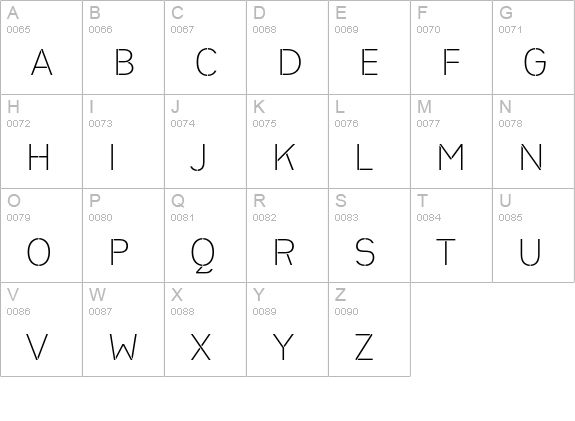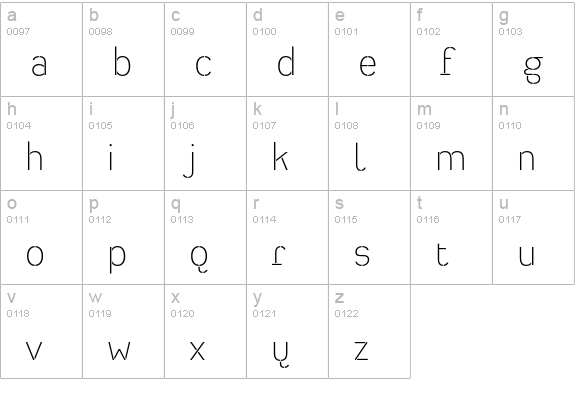
Heimat Stencil ExtraLight Font Details
Heimat Stencil ExtraLight is an airy, ultra-refined variant in the Heimat typeface family \xE2\x80\x94 well suited to minimalist headlines and refined display use.
Heimat Stencil ExtraLight font is an elegant and modern typeface that exudes sophistication and style. With its sleek lines and geometric shapes, this font is perfect for adding a touch of class to any design project. The ExtraLight weight of the font gives it a delicate and airy quality, making it ideal for use in headings, titles, and other display text. One of the best things about Heimat Stencil ExtraLight font is that it is completely free to download. That's right, you can get your hands on this stunning typeface without spending a dime. Simply visit FontsMarket.com to download Heimat Stencil ExtraLight font and start using it in your designs today. Whether you're working on a branding project, a website design, or any other creative endeavor, Heimat Stencil ExtraLight font is sure to make a statement. Its clean and modern look will help your text stand out and grab attention, while its versatility makes it suitable for a wide range of applications. Download Heimat Stencil ExtraLight font now and take your designs to the next level.